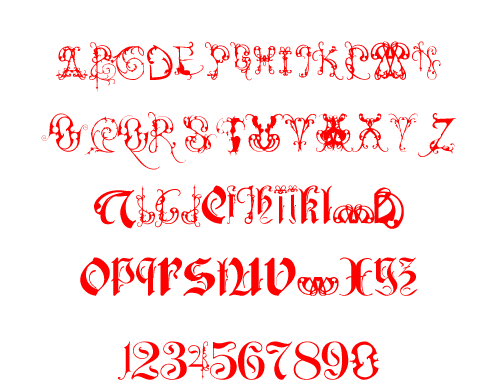
Ornment, Marina Tam.
This typeface is inspired by the book Art Forms in Nature,
by Haeckel. This book captures his passionate artistic sensibility
and scientific rigor in all of his studies. Assembling various elements
of his underwater animals in to letters, I created this typeface Ornments.
Its organic symmetry , using a simple outline, attempts to represent
the animal shapes. The evolutionary statement of form is inherent
in its beauty.